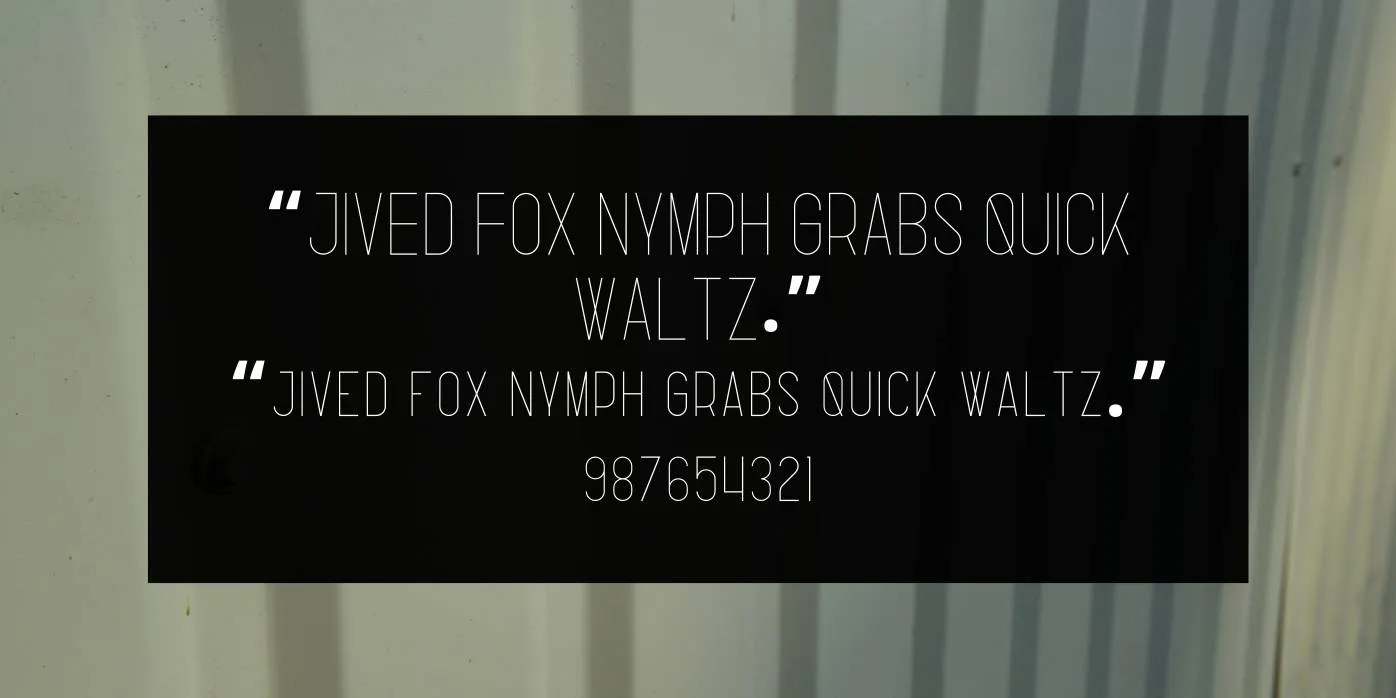
Fabulist Font
Here is a brief introduction to Fabulist Font. This font is very beautiful and neat font. This font was created by Vladimir Fedotov on June 04, 2019. It is a substitute for unlimited glyphs.
This font is very multi-skilled as it can be used for small and big-size projects. This font style is regular. It consists of 120 characters. The weight of the font is normal and the width is Medium (normal) Unicode blocks of these fonts are Basic Latin Latin-1 Supplement and Latin Extended-A.
This font has the ability that it can be used in small and large projects. Some fonts are only used for small projects and some for large ones. But this font can be used for both purposes. This font is also used for making three-dimensional works.
This font style also makes a very well pair with twitch logo font. This font can be used for personal and commercial projects. This stunning typeface is a very good option for making headers of the magazine and product packing. You can also utilize this font for CSS, Adobe Photoshoots, Illustrator, and Canva.
This stunning font is very beautiful and neat font. Vladimir Fedotov creates this font on June 04, 2019. Is Fabulist font good for PowerPoint? This font has geometric forms which is a good resource for working in PowerPoint.